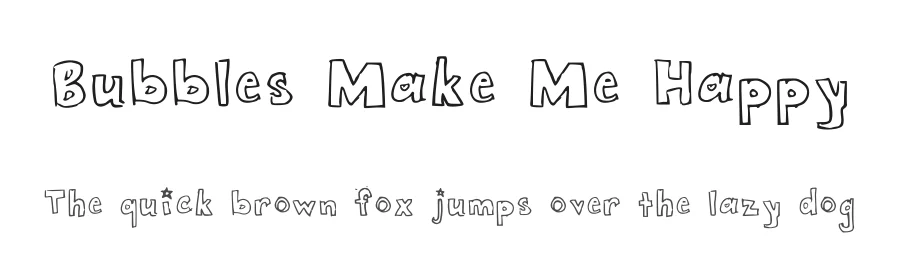
About Balyta Kids Font
Balyta Kids Specifications
| Font Family | Balyta Kids |
| Full Name | Balyta Kids |
| Glyph Count | 225 glyphs |
| PostScript Name | BalytaKids |
| Designer | Wildan Suprian Syah |
Balyta Kids supports 219 languages.
Balyta Kids Font is a decorative font that shines as a display or heading face. Pair it with a clean sans-serif or serif font for body text β the contrast creates a clear hierarchy while the two styles stay balanced and easy to read.
Balyta Kids Font
by Wildan Type